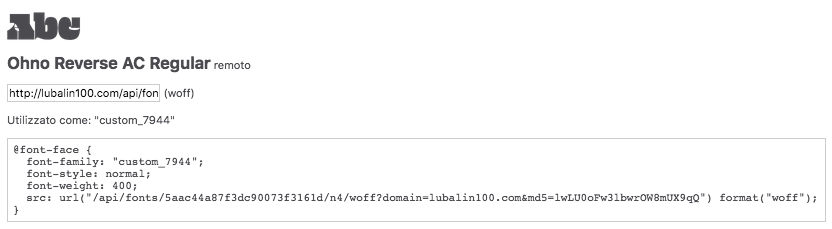
100 Years of Herb Lubalin
“100 things over 100 days to celebrate Lubalin’s Centenary. Items selected from the Lubalin archive that surprise and delight, stories from past collaborators and current appreciators, all to celebrate the legacy he left in design.”
As @Gecko pointed out, it is a custom typeface by James Edmonson. Apparently it is called "Ohno Reverse AC".
Riccardo - where on the ohno website did you find the name of this font? Can you send me a link.
It's very close to
https://www.futurefonts.xyz/ohno/ohno-blazeface-italic
just need to find the roman version. Beautiful nonetheless.
Randy it looks like we're getting closer and closer. I have actually just written to James Edmondson at Ohno Type to ask him personally the name of the font. Will post his reply - if I get one!